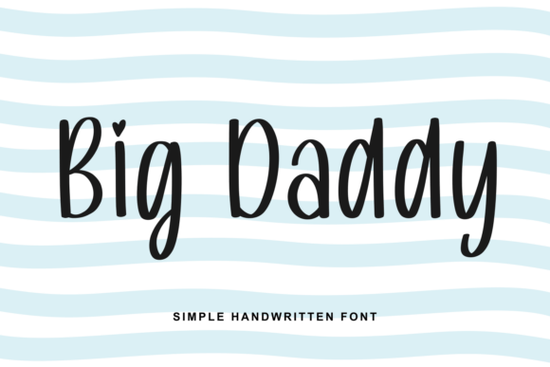
If you're hunting for a handwritten font that feels bold, fun, and easy to read all at once, Big Daddy is worth a close look. It's a tall, narrow script with smooth hand-drawn curves and a playful personality that works across branding, apparel, social media, and packaging. I've seen a lot of handwritten fonts come and go, but this one strikes a rare balance between being eye-catching and still legible at a glance which matters a lot when you're designing for real-world use.
What makes Big Daddy different from other handwritten fonts?
Most handwritten fonts fall into two camps: either they're too messy to read in longer text, or they're so polished that they lose the handcrafted feel. Big Daddy sits in a sweet spot. The letterforms are tall and narrow, which gives them a modern, slightly condensed look. But the curves are soft and rounded, so nothing feels stiff or forced.
That combination makes it surprisingly versatile. You can use it for a cheerful logo, a bold headline on a poster, or even short phrases on product packaging. The whimsical details like slightly uneven strokes and friendly letter spacing give every word a warm, approachable tone without sacrificing clarity.
What kinds of projects does Big Daddy work well for?
This font is a strong match for any project where you want personality without sacrificing readability. Here are some popular uses:
- Branding and logos Great for businesses that want to feel approachable, like bakeries, kids' brands, or lifestyle shops.
- T-shirt and apparel design The bold, tall letterforms show up well on fabric and read clearly from a distance.
- Social media graphics Perfect for quotes, announcements, and story headers where you need to grab attention quickly.
- Packaging and labels Works beautifully on product labels, gift tags, and retail packaging that needs a handmade touch.
- Posters and flyers Ideal for event posters, sale signs, and cheerful display designs.
If you sell on platforms like Etsy or run a print-on-demand shop, a font like this can help your products stand out in a crowded marketplace. Handwritten styles are consistently popular with buyers who want something that feels personal and authentic.
How does Big Daddy compare to other script fonts?
Every handwritten font brings its own vibe. If you're building a font collection for your design work, it helps to understand how Big Daddy fits alongside other options.
For example, Summer Love leans more romantic and flowing it's better suited for wedding invitations and elegant designs. Meanwhile, Hiragenda has a more refined, modern calligraphy feel that works well for upscale branding.
If you prefer something with a laid-back, casual rhythm, Staying offers a relaxed handwritten style. And Almonday brings a softer, rounder aesthetic that pairs nicely with minimalist layouts.
Big Daddy stands apart because of its bold presence. Where many script fonts whisper, this one speaks up. That makes it a go-to choice when you need your text to command attention while still feeling friendly and approachable.
Is Big Daddy easy to use for beginners?
Yes, and that's one of its biggest strengths. You don't need advanced design skills to make this font look good. Because the letterforms are clean and well-spaced, you can drop it into a design without spending extra time adjusting kerning or readability.
- Pair it with a simple sans-serif For body text or secondary info, a clean sans-serif balances the bold handwritten style.